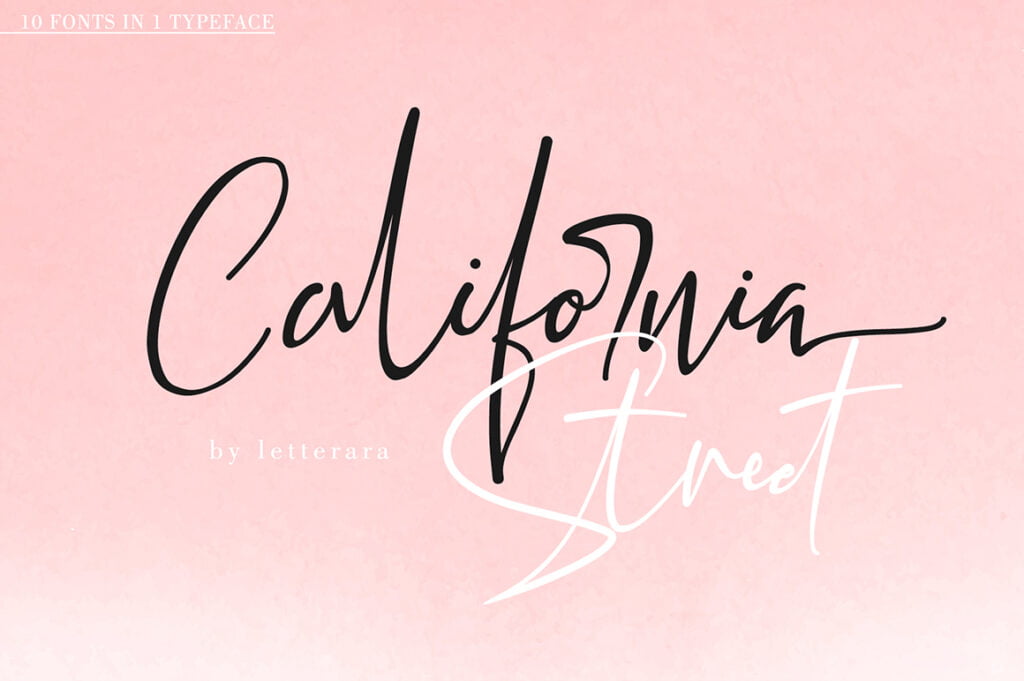
California Street Script Font
California Street Font is a sweet script girly font with a real handwritten feel. Modern, yet feminine and romantic, and easy to read. It is design and shared by letterara.
It’s the perfect handwritten font: Sweet, innocent, light and charming, this one-of-a-kind typeface will add a unique charm to any design project!